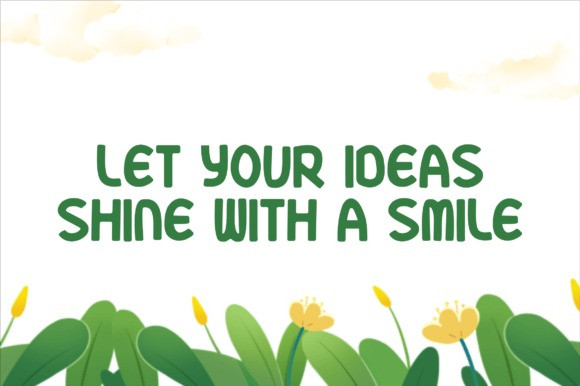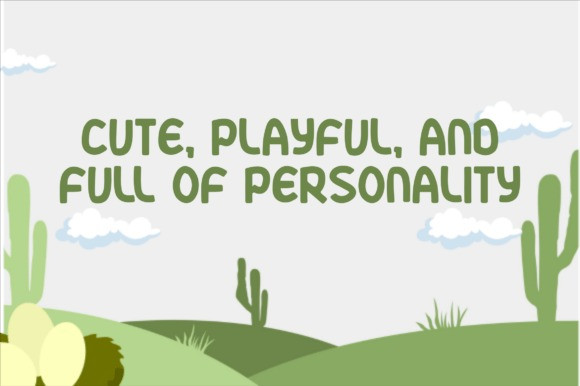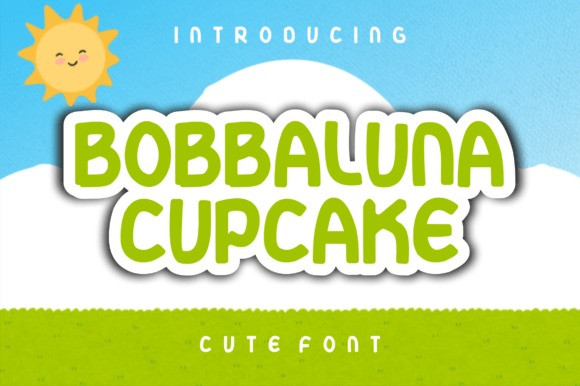
Bobbaluna Cupcake Font is a cheerful and adorable display font designed to bring joy, creativity, and imagination to every project. Featuring rounded shapes, playful curves, and a friendly personality, this font captures the magic of childhood in every letter. Its soft and bubbly appearance makes it perfect for children’s books, educational materials, toy packaging, birthday invitations, nursery decorations, cartoons, branding, and any design that needs a touch of sweetness and fun.
Whether you’re creating playful headlines, cute logos, or colorful social media content, Bobbaluna Cupcake adds warmth, charm, and a delightful character that instantly captures attention. Let your creativity shine with a font that turns ordinary words into happy and memorable experiences.